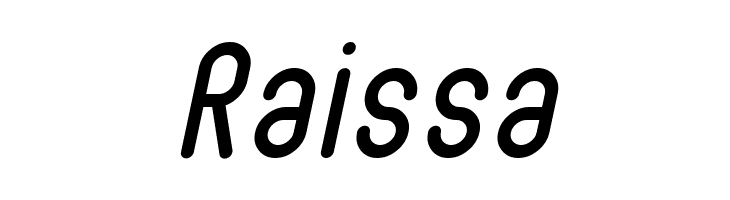
Searider Falcon Gradient Italic Font
- Font: Searider Falcon Gradient Italic
A modern, rounded font with smooth, elongated characters and consistent stroke width.